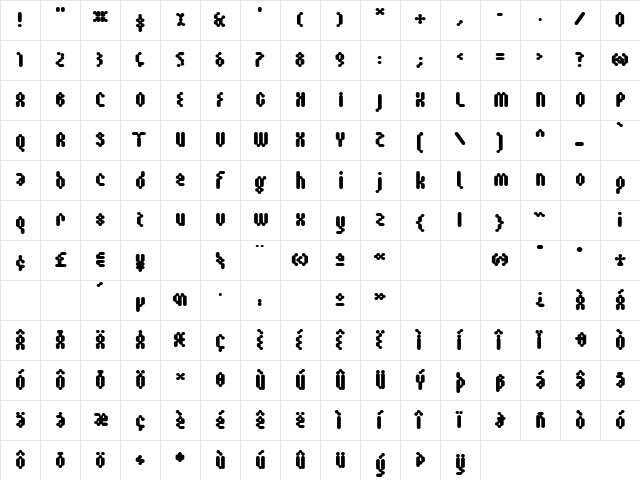
Biot ExtraBold
Design Context for Biot Typeface
Biot offers clean, dependable letterforms without strong stylistic allegiance, making it a practical choice for designers who need flexibility. Its bold stroke weight gives it real presence on the page.
Pro Tip: Use Biot in both headline and body roles to test its range before committing to a single application.